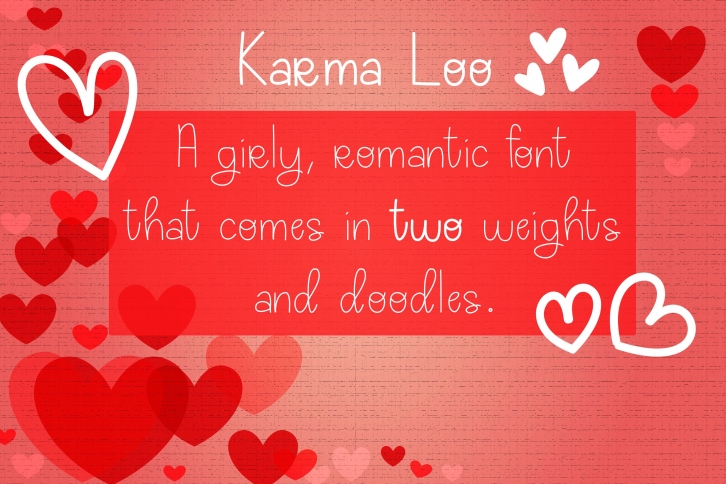
Karma Loo is a beautiful font that was designed by Sunkissed Minimalist Co. It's a great choice for designers and creatives who need such a font. It was released on December 23, 2018 and the file size is 20.14 MB. Karma Loo may give a more youthful, expressive and casual look to your project. It is a very beautiful, refined, elegant, and high-quality font.